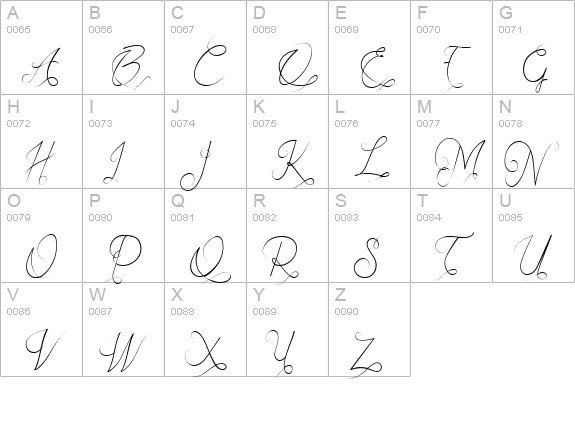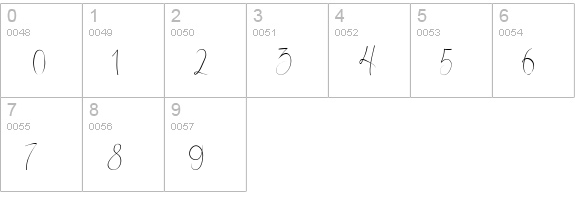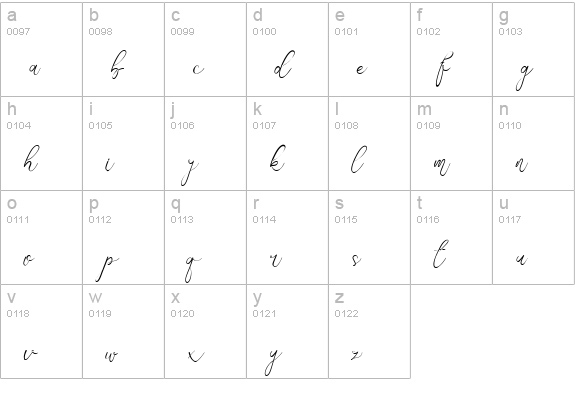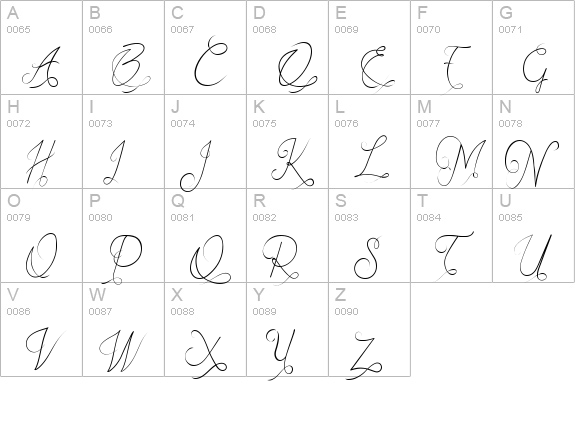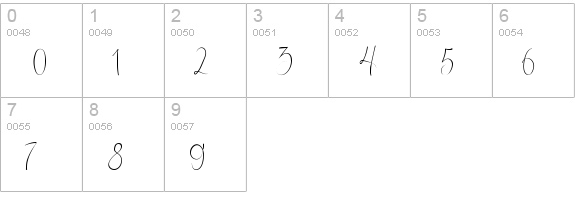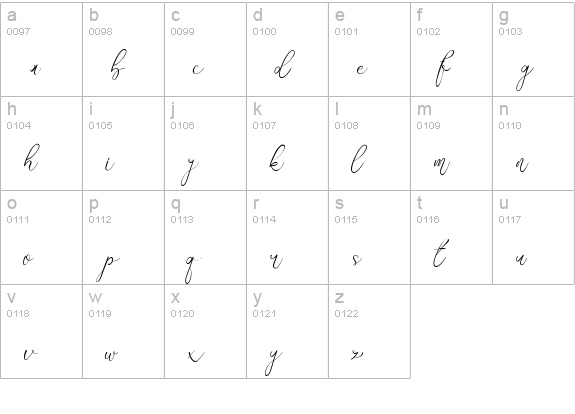
Rosetta Font Details
Rosetta is a demo font in the Fancy > Feminine category, designed by HydricDesign. It has been downloaded 370 times and is available for Windows, Mac and Linux.
Rosetta font is a stunning typeface that seamlessly blends elegance with modernity. Its sleek lines and fluid curves make it a versatile choice for a wide range of design projects, from branding to editorial layouts. With a timeless appeal, Rosetta exudes sophistication and grace, making it perfect for adding a touch of class to any creative endeavor.